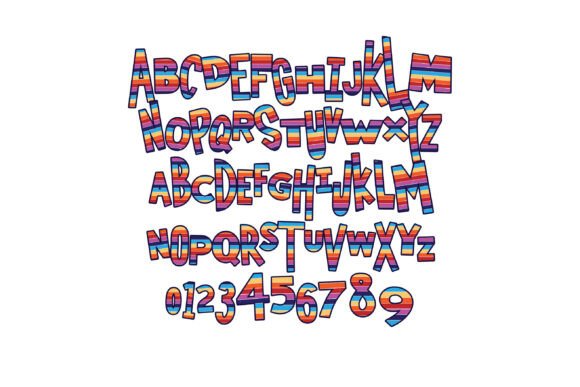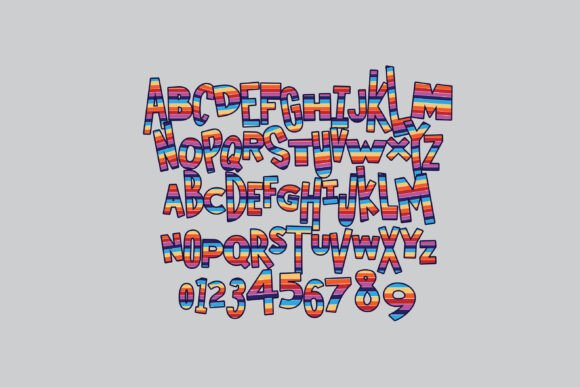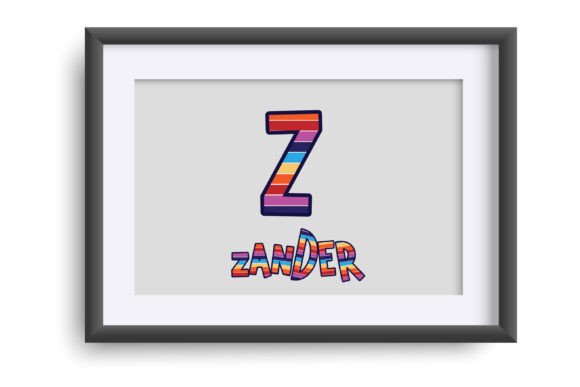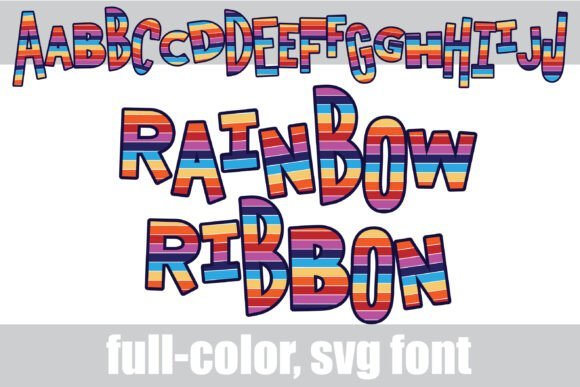
This full-color font features a whimsical, bouncy sans serif in a rainbow stripe.
There is an alt case of reverse rainbow of each letter that you can access through your system or Silhouette’s glyph map OpenType full-color (SVG) fonts are installed like any normal .